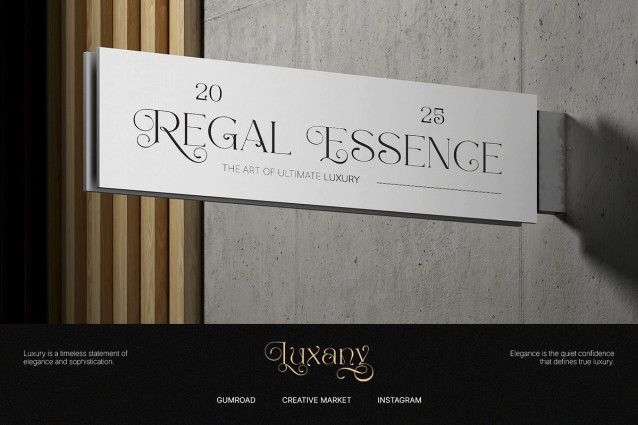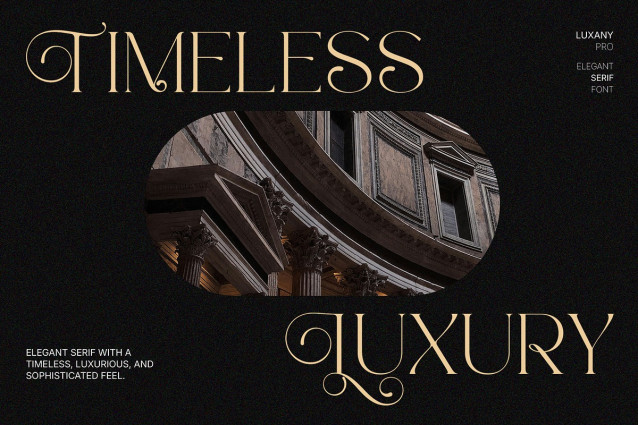
Luxany Font
Luxany Font is a newly introduced elegant serif font. Its design emphasizes aesthetics and ligatures, featuring refined and elegant strokes. This font is suitable for design needs requiring a luxurious and sophisticated feel, such as premium branding, wedding invitations, or editorial design.